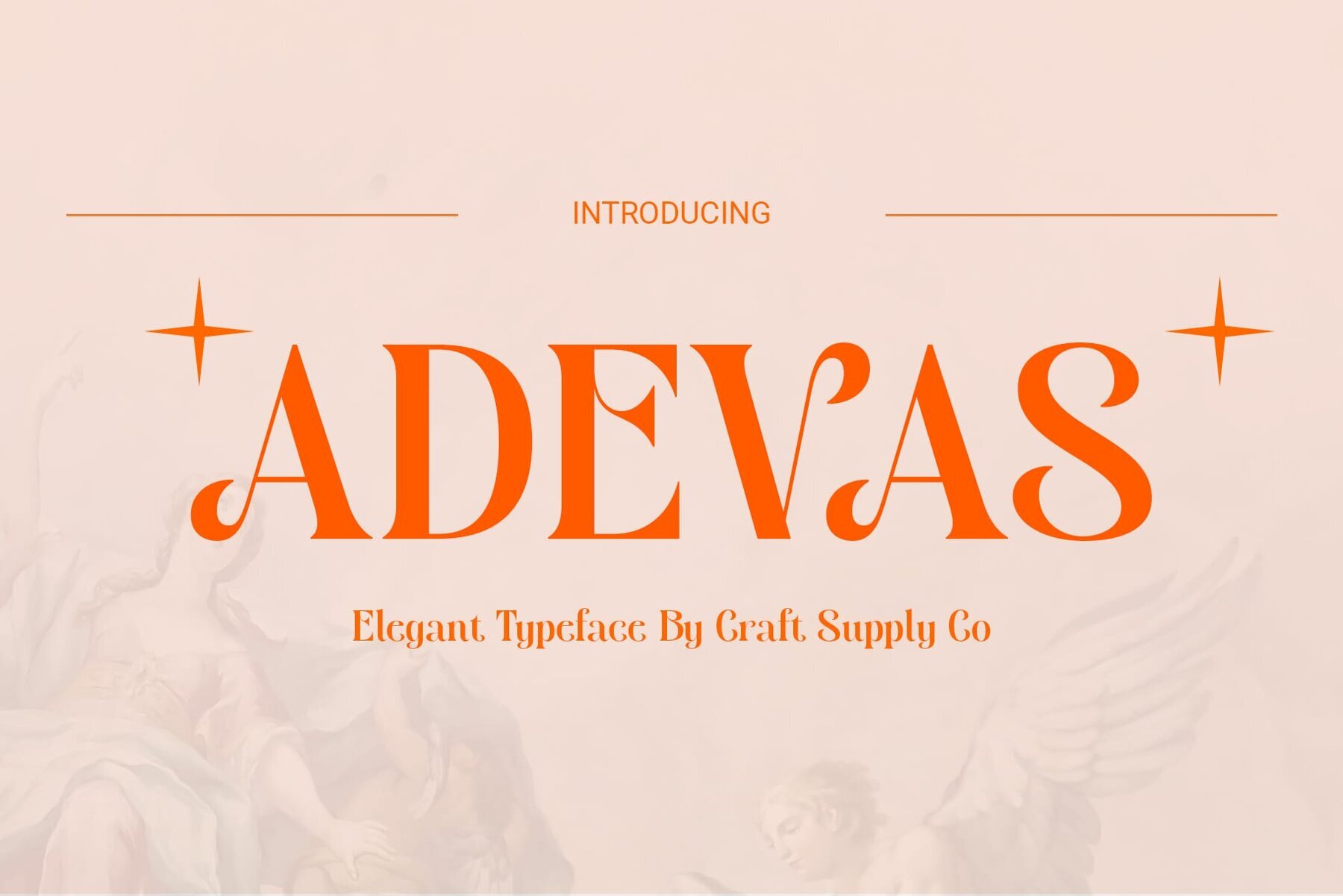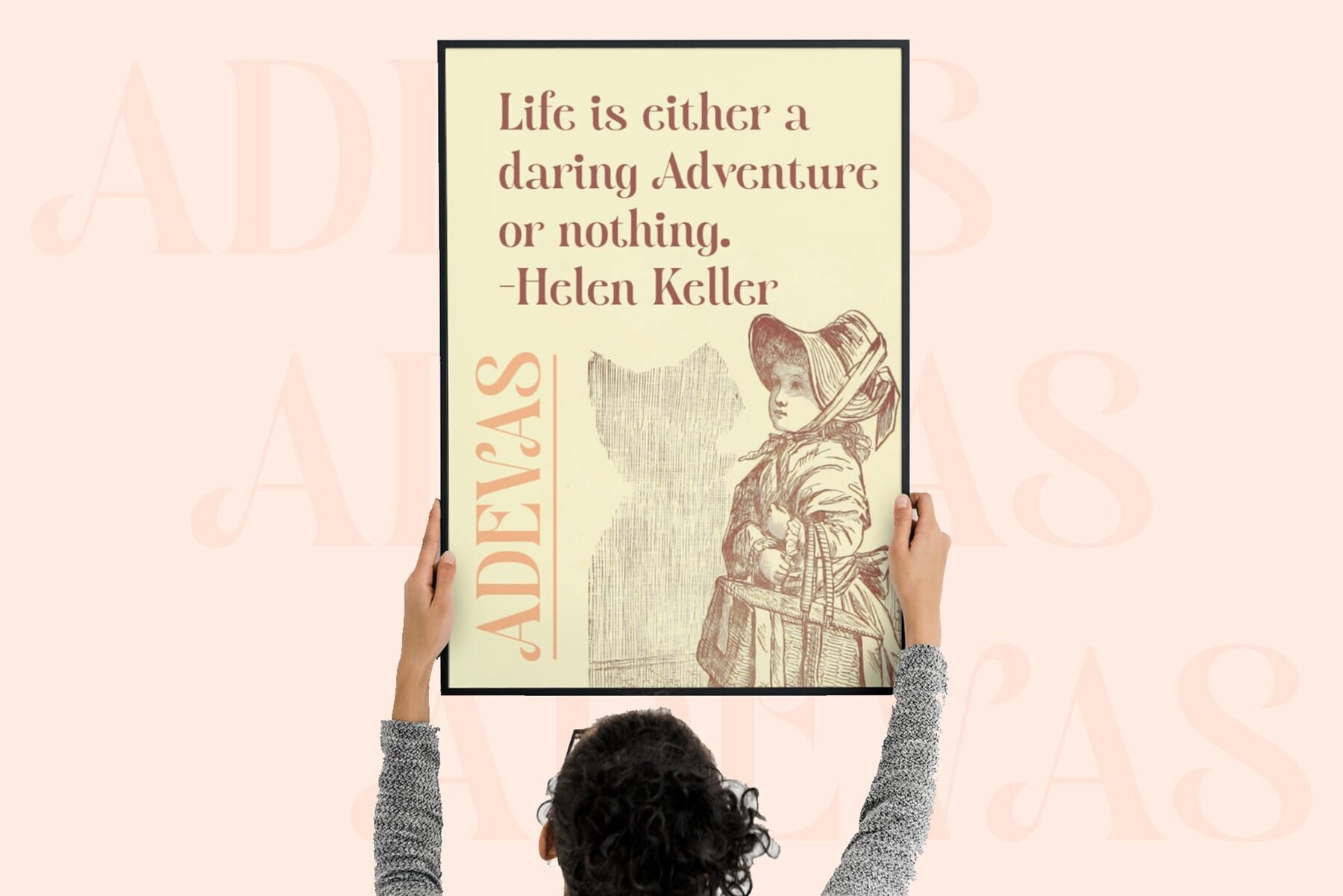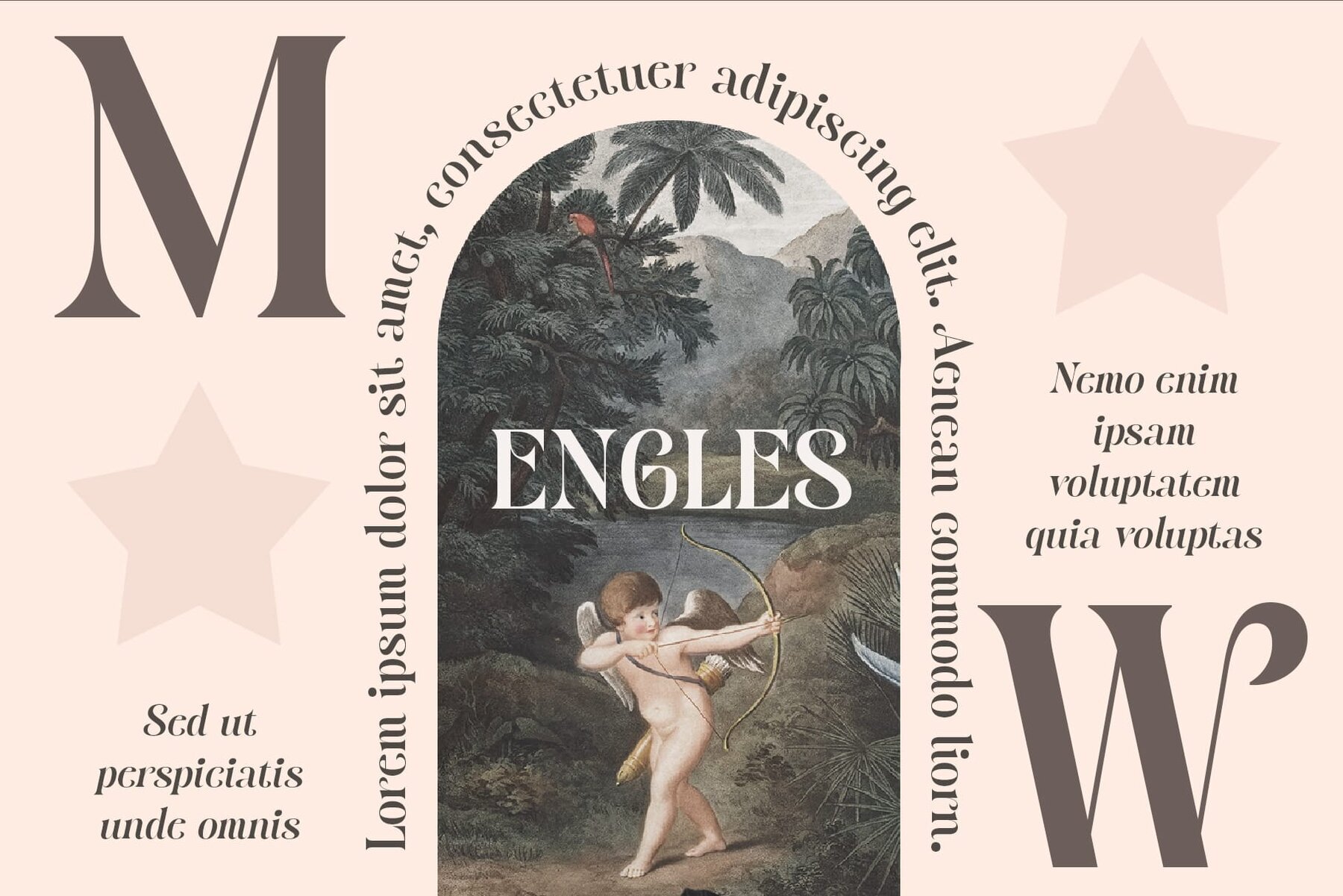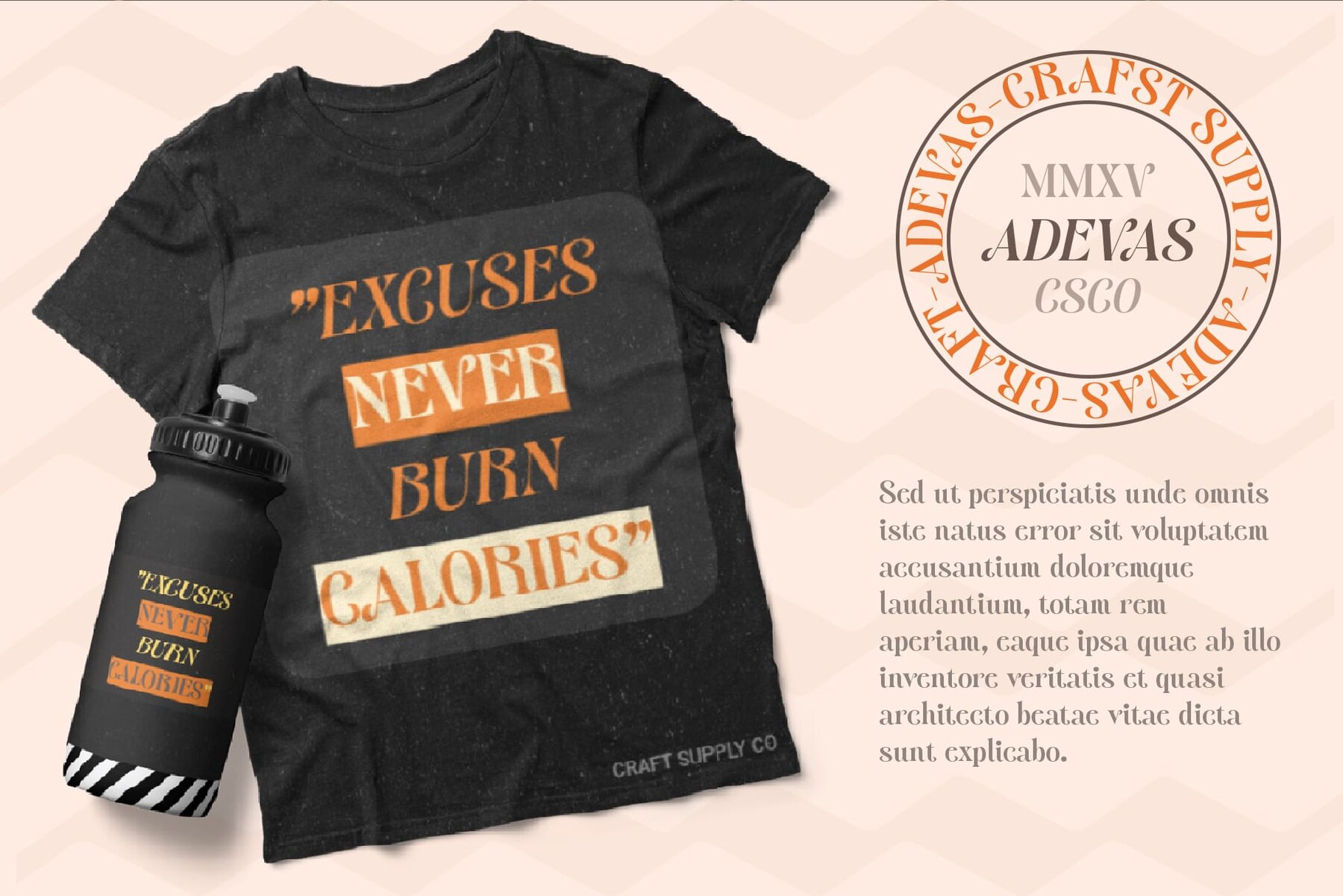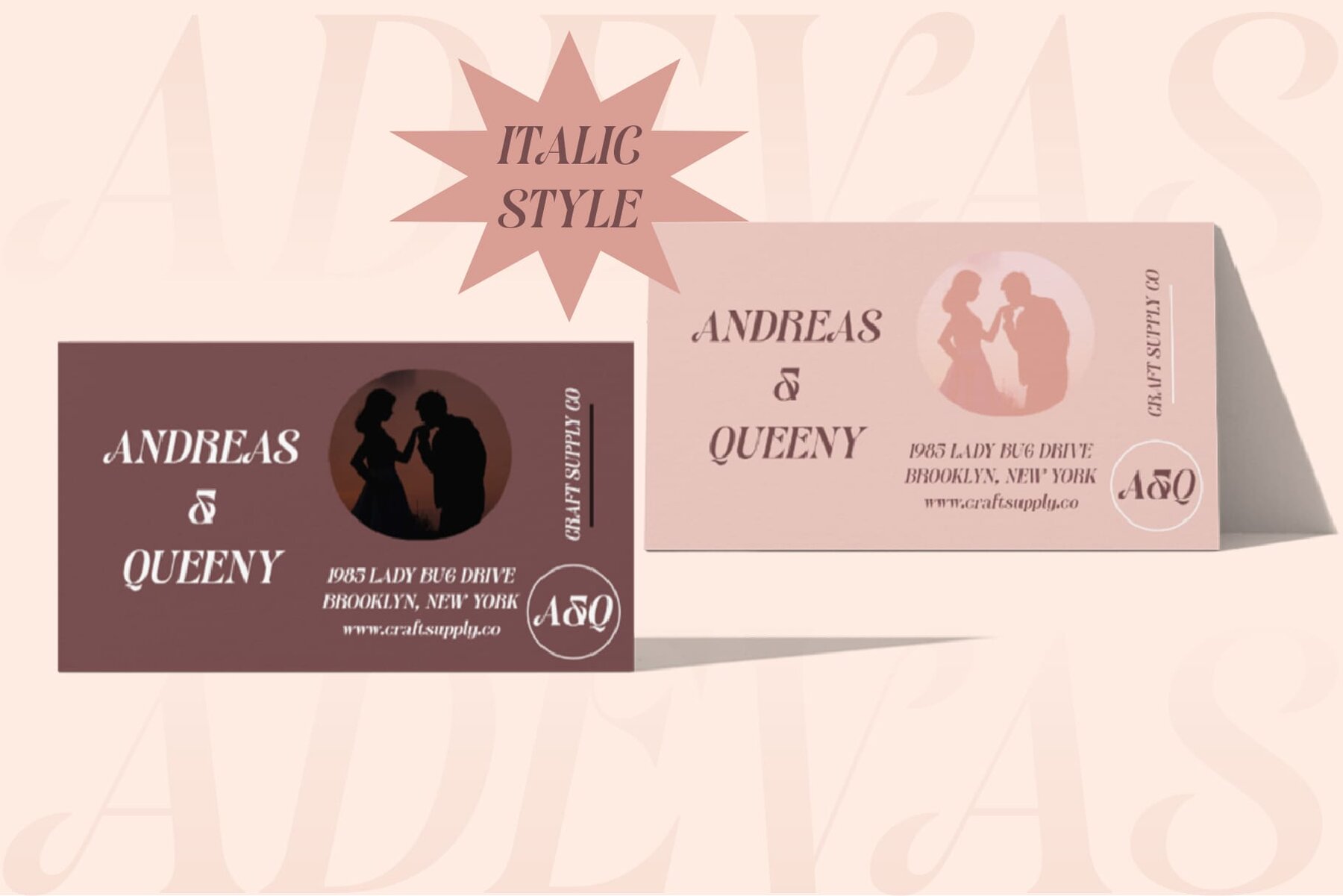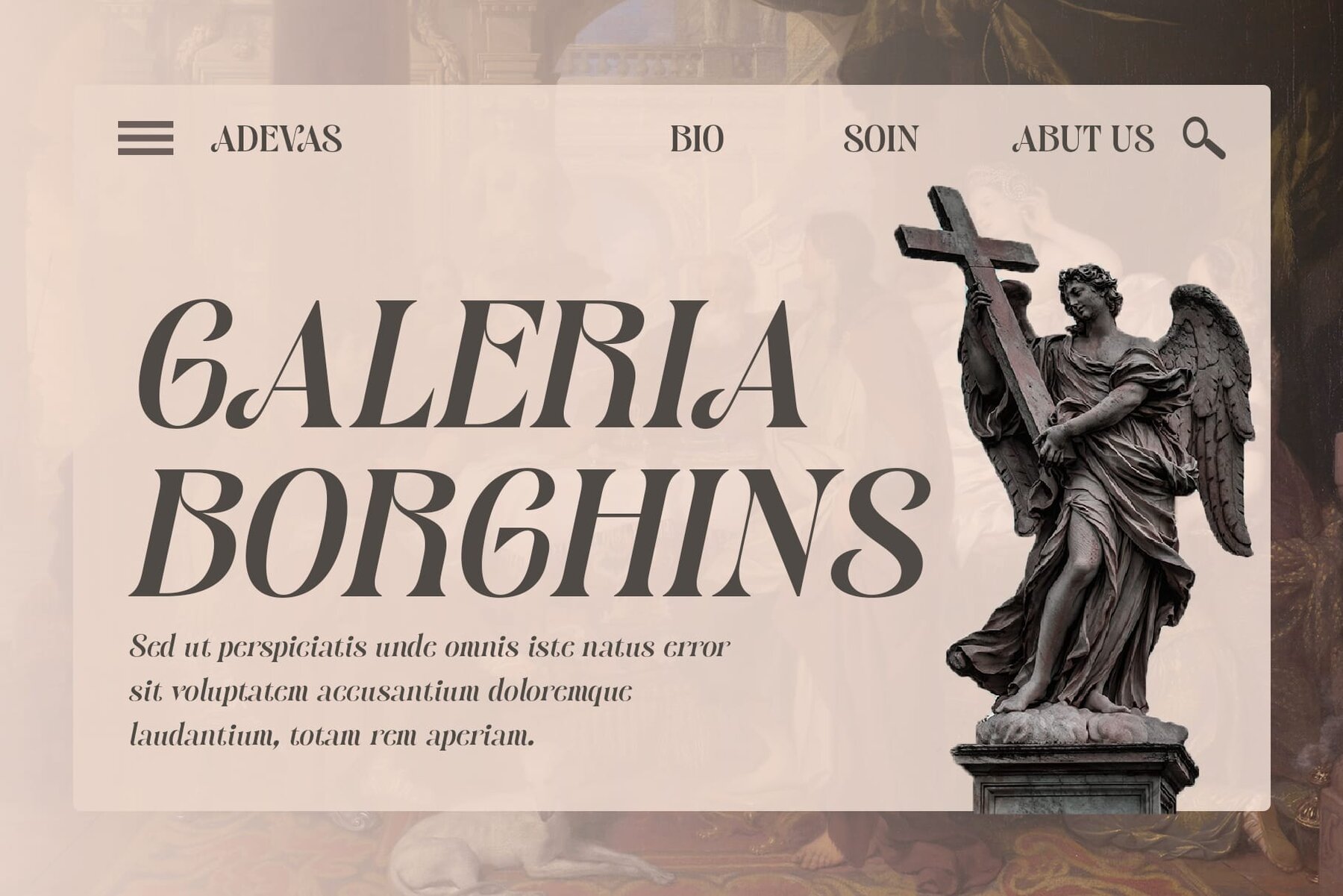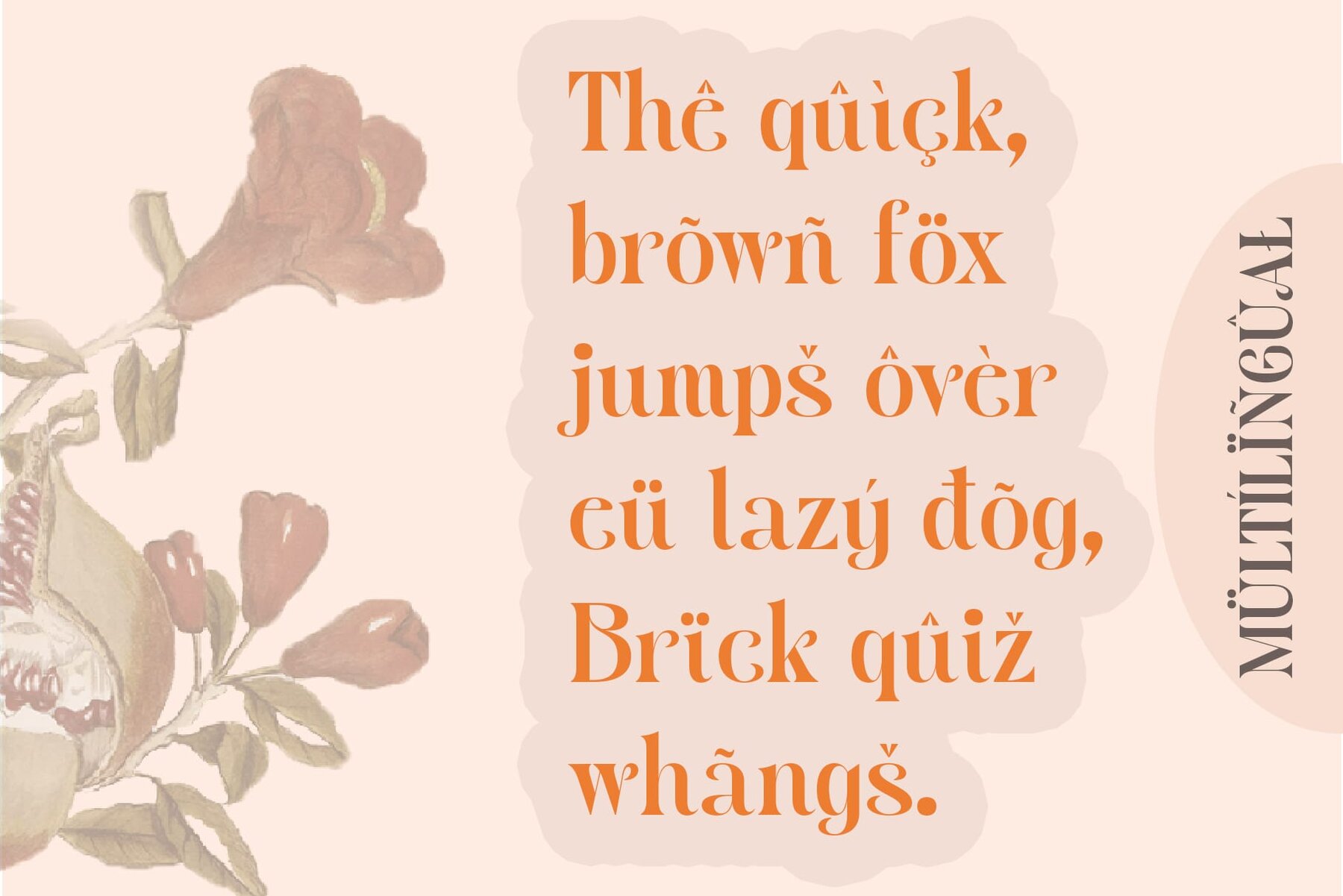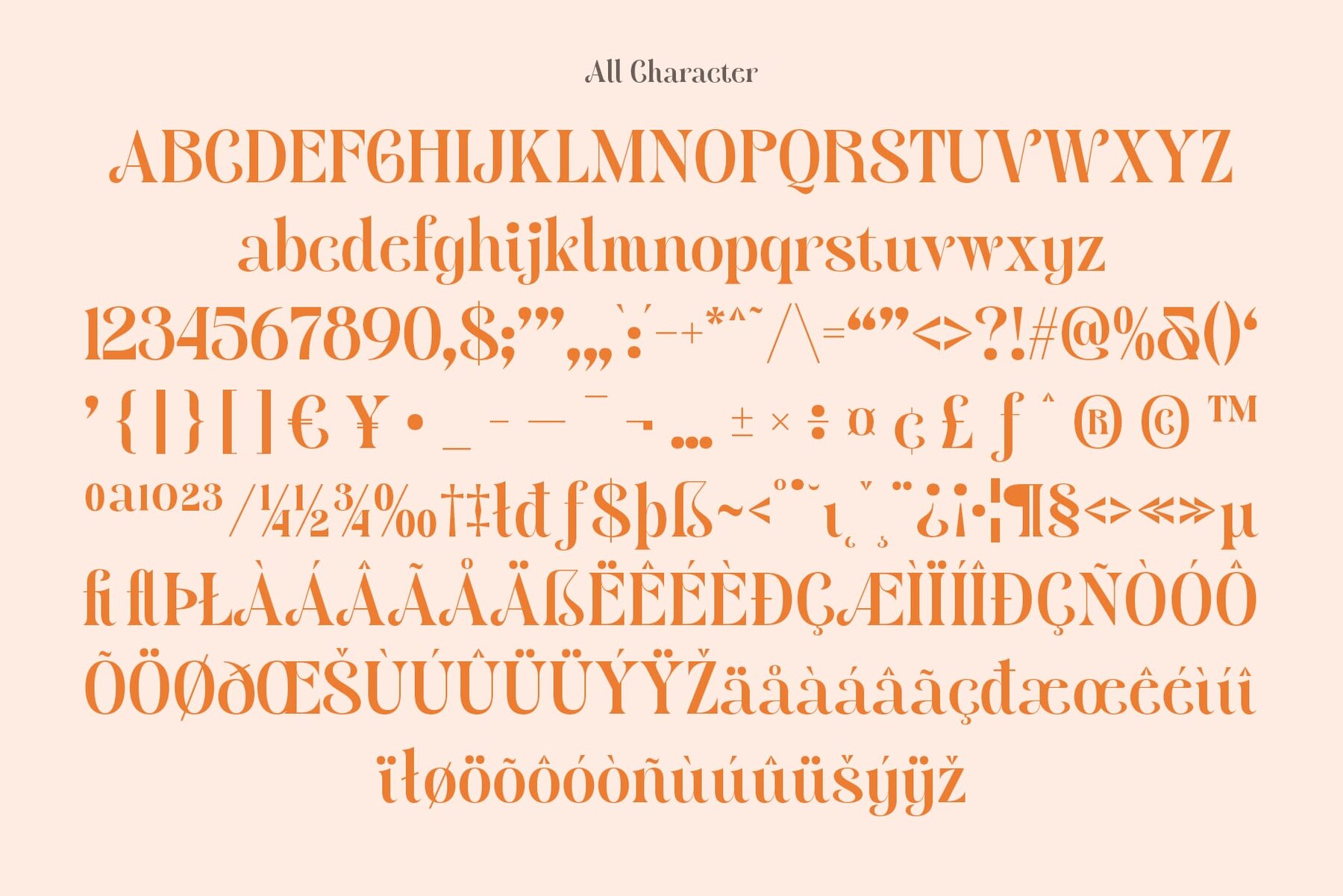
Adevas Font
Adevas from Craft Supply Co. is a remarkable font featuring a high-contrast serif design. This font displays a dynamic interplay of thick and thin strokes, making it an excellent choice for applications demanding elegance and readability. The signature element of Adevas is its pronounced contrast between thick and thin lines, which enhances legibility while adding a sophisticated aesthetic. This characteristic makes it an ideal choice for both headlines and text-heavy sections in various mediums. Adevas offers flexibility across a wide range of design projects. Whether it’s branding, editorial designs, or user interfaces, the font provides a stately yet accessible appearance. Adevas excels in numerous contexts:Adevas by Craft Supply Co.: High-Contrast Serif That Elevates Design Elegance
Striking Visual Contrast
Design Flexibility
Usage Scenarios